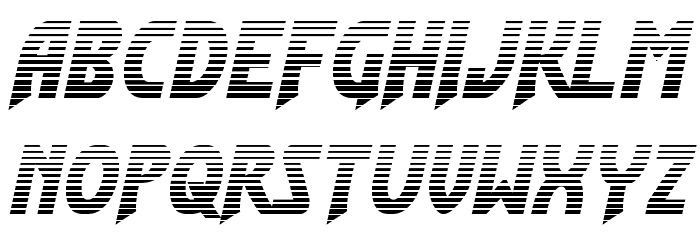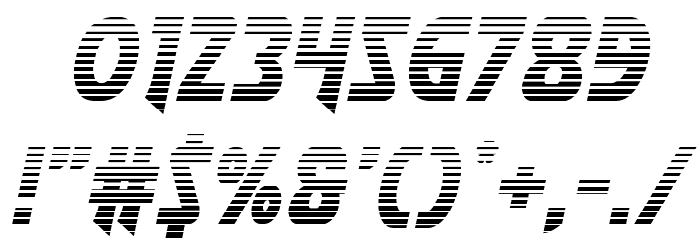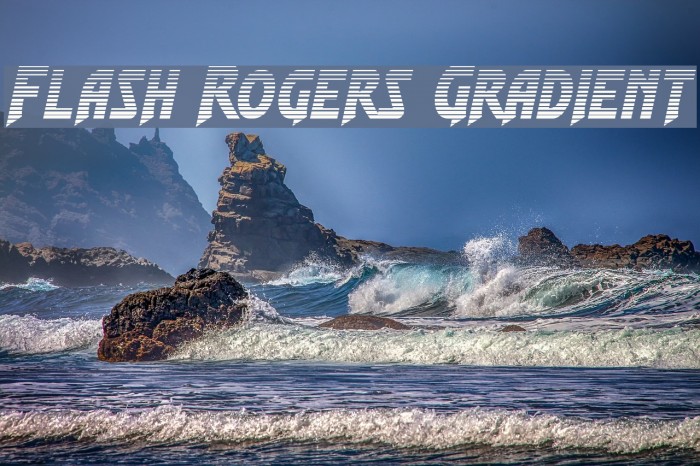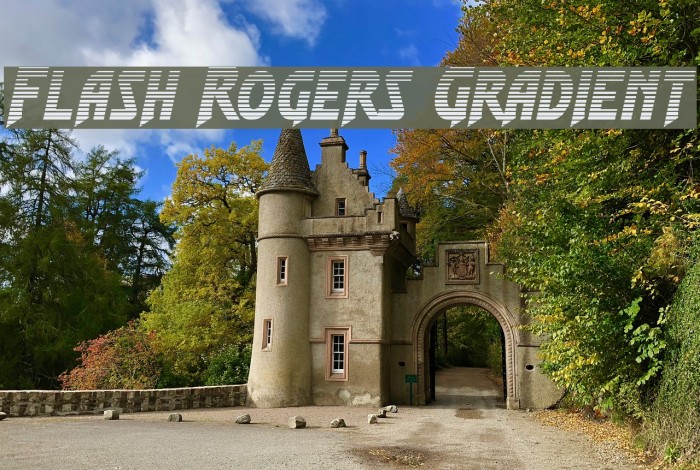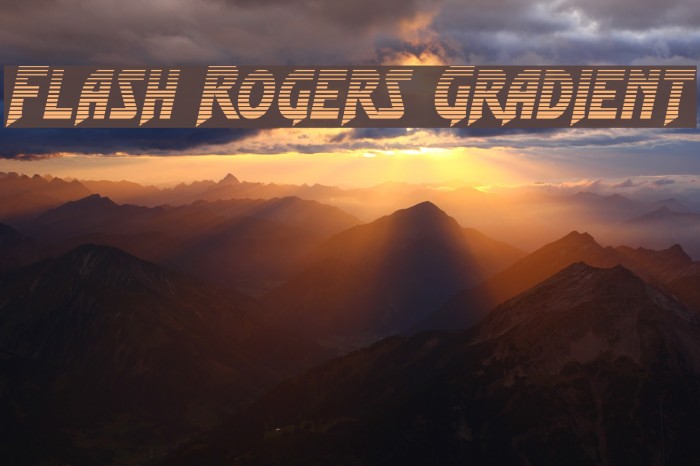
Flash Rogers Gradient Font
This font features a dynamic and futuristic design with a distinct gradient effect created by horizontal lines cutting through each character. The bold, angular shapes give it a sense of speed and movement, making it ideal for projects that require a modern and energetic aesthetic. The uppercase and lowercase letters maintain a consistent style, with numerals and special characters following the same design principles. The overall look is striking and attention-grabbing, suitable for headlines and display purposes.
A bold, futuristic font with a gradient effect and dynamic angular shapes.
- Proposed Projects: Ideal for sports branding, technology logos, video game titles, and dynamic posters.